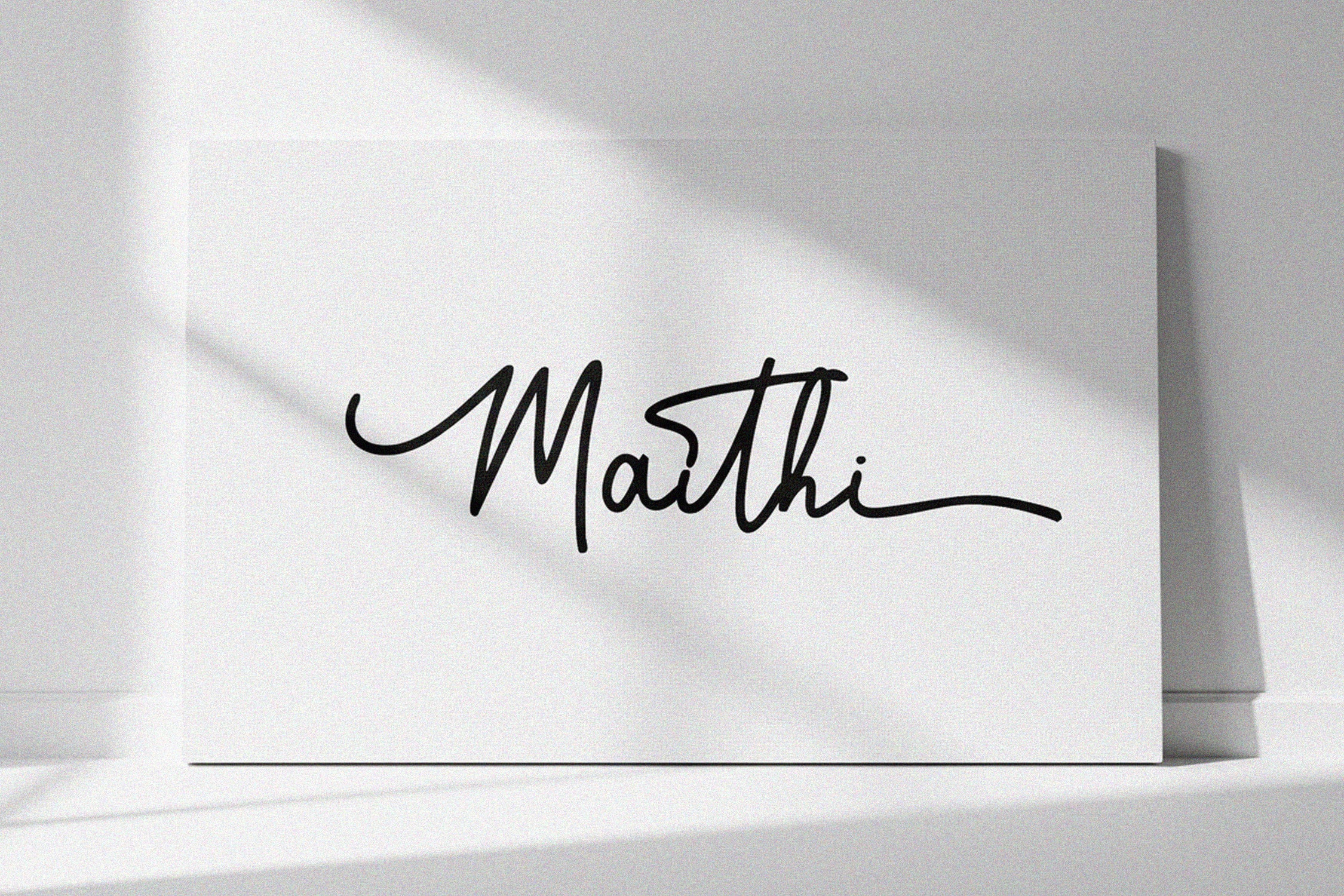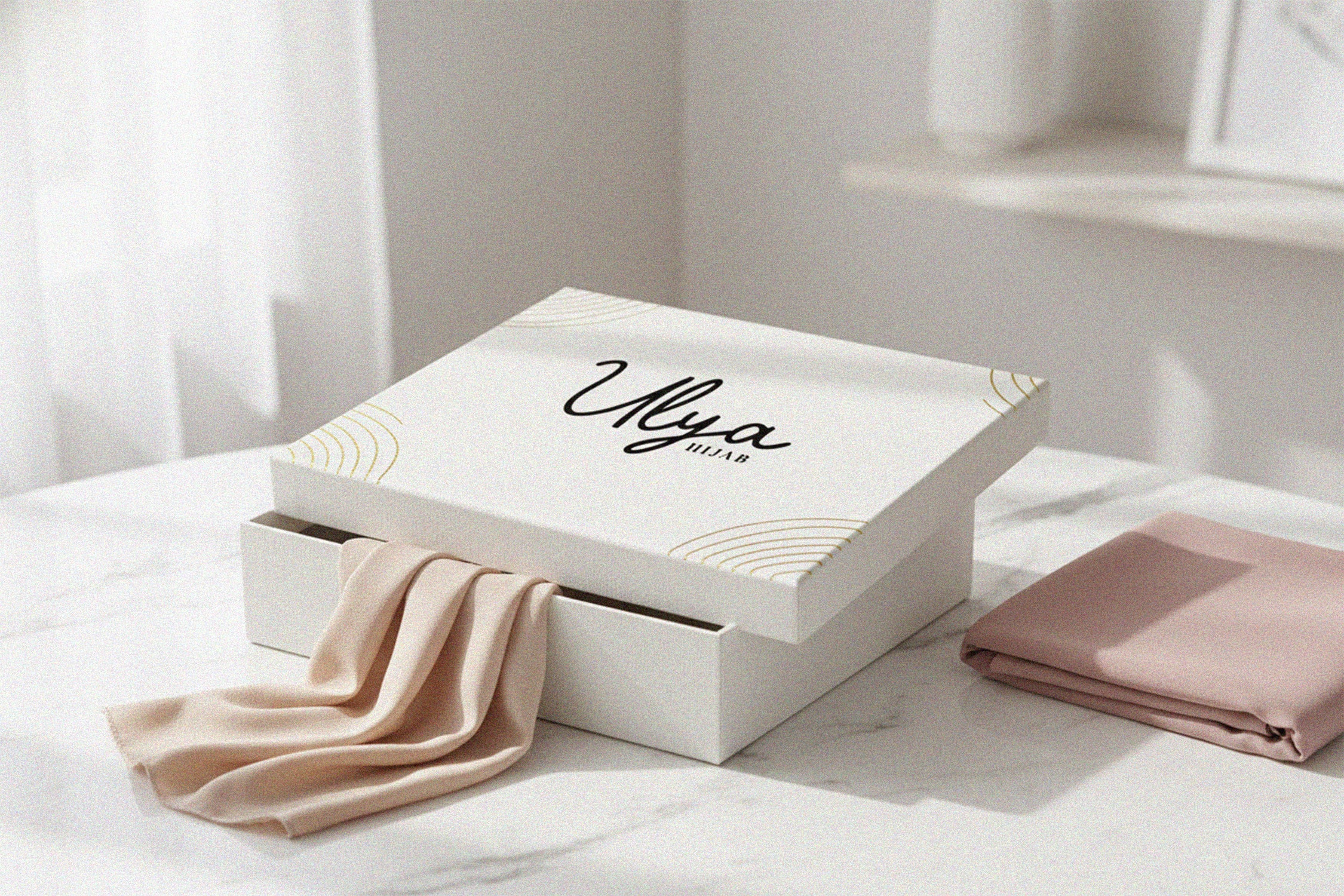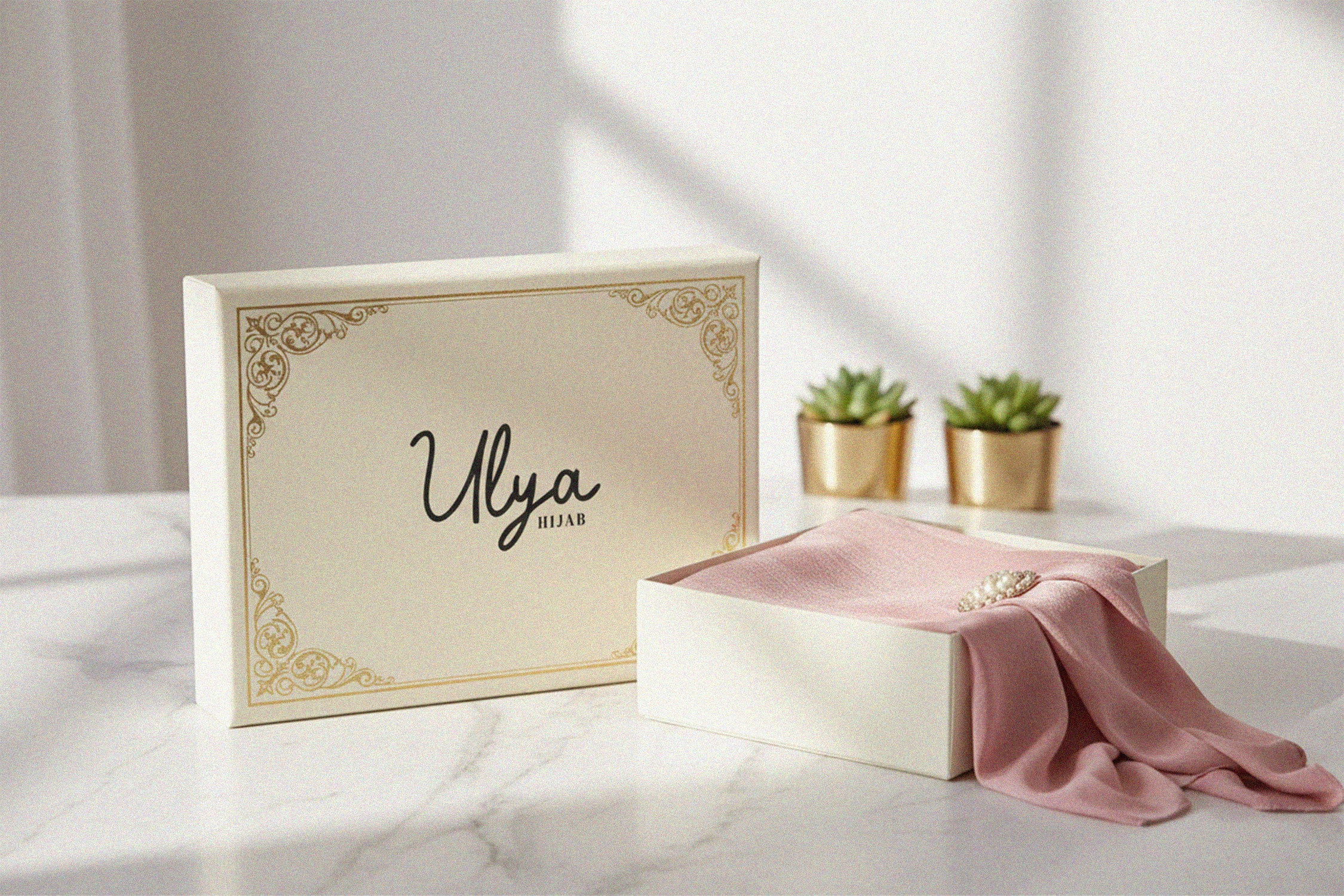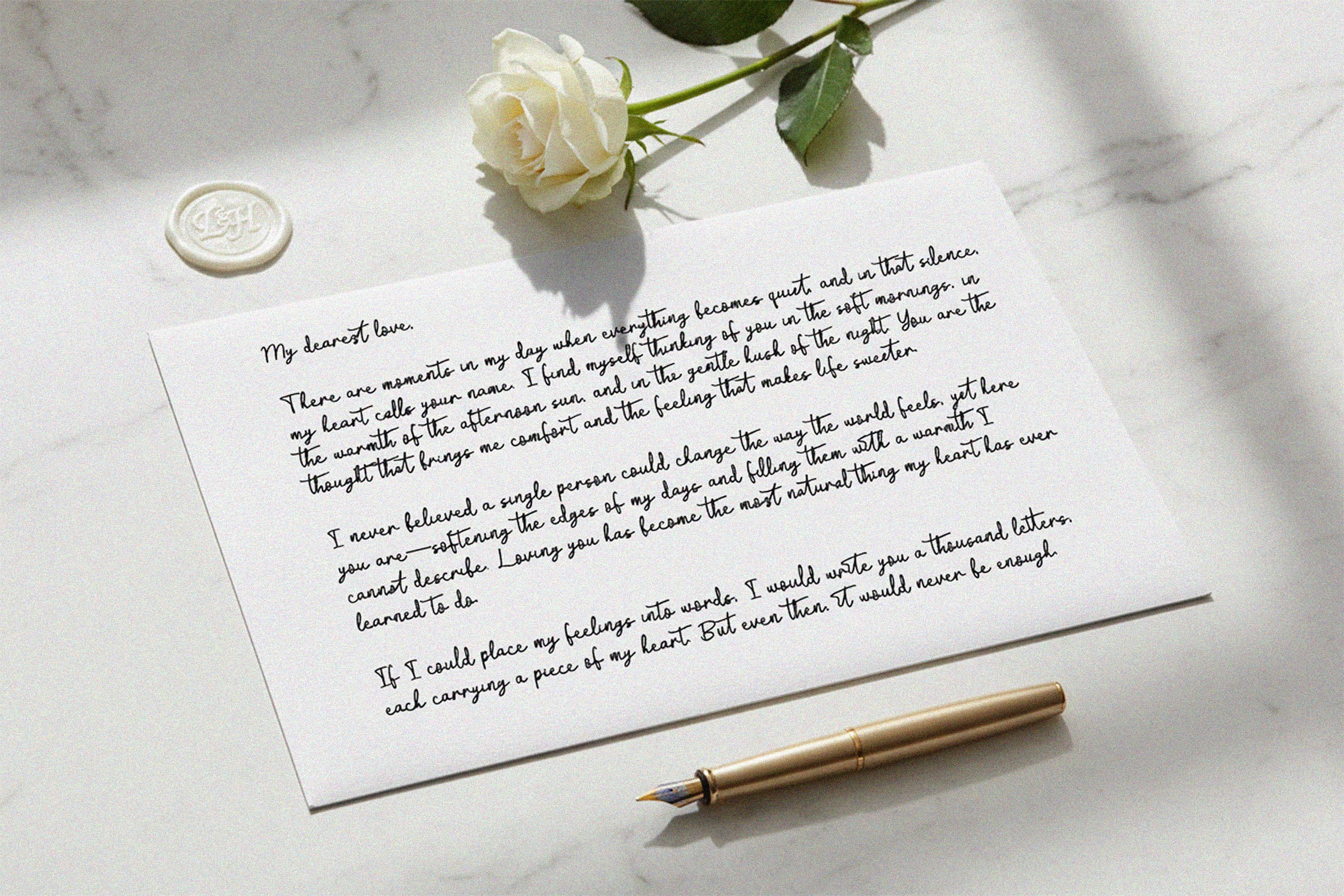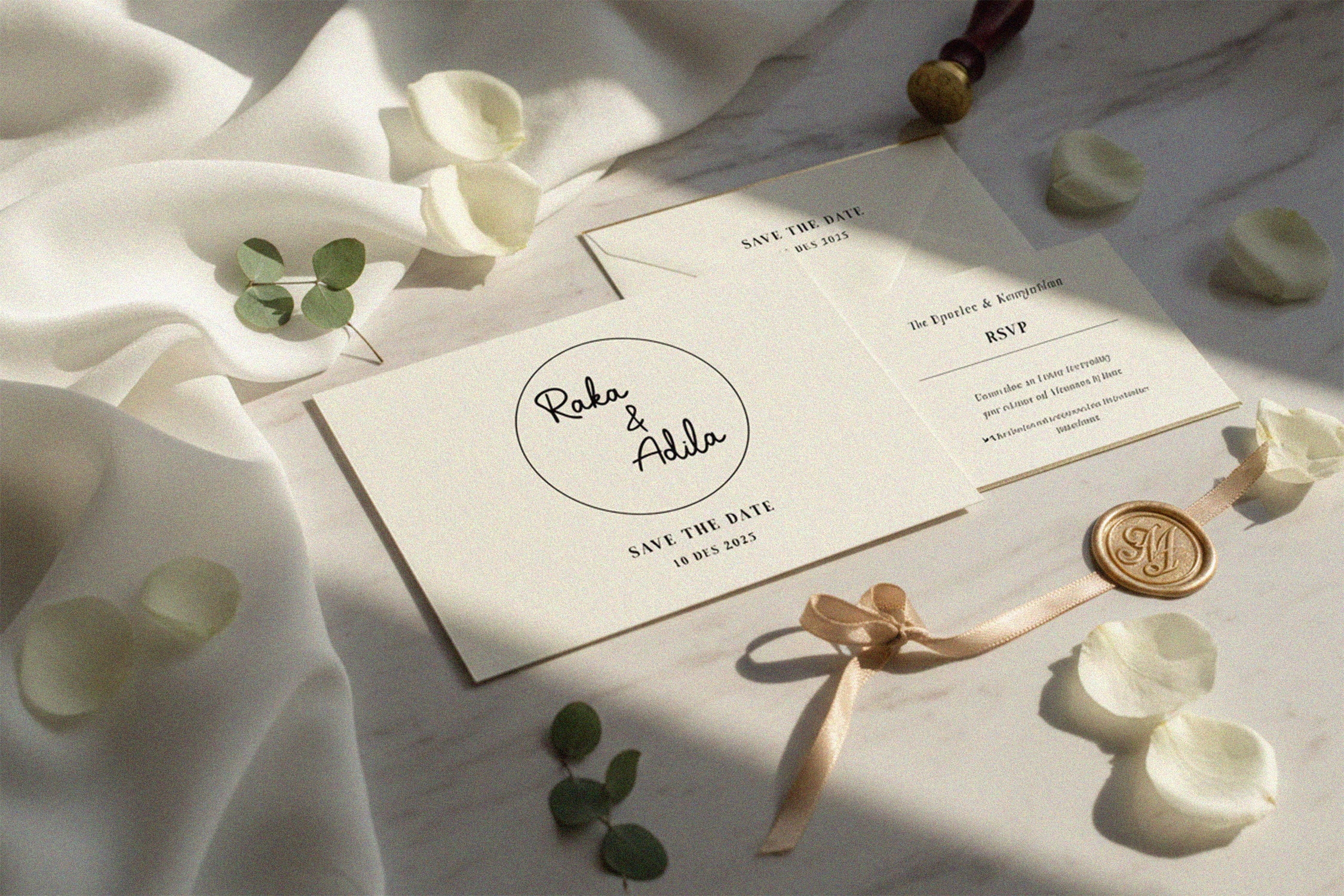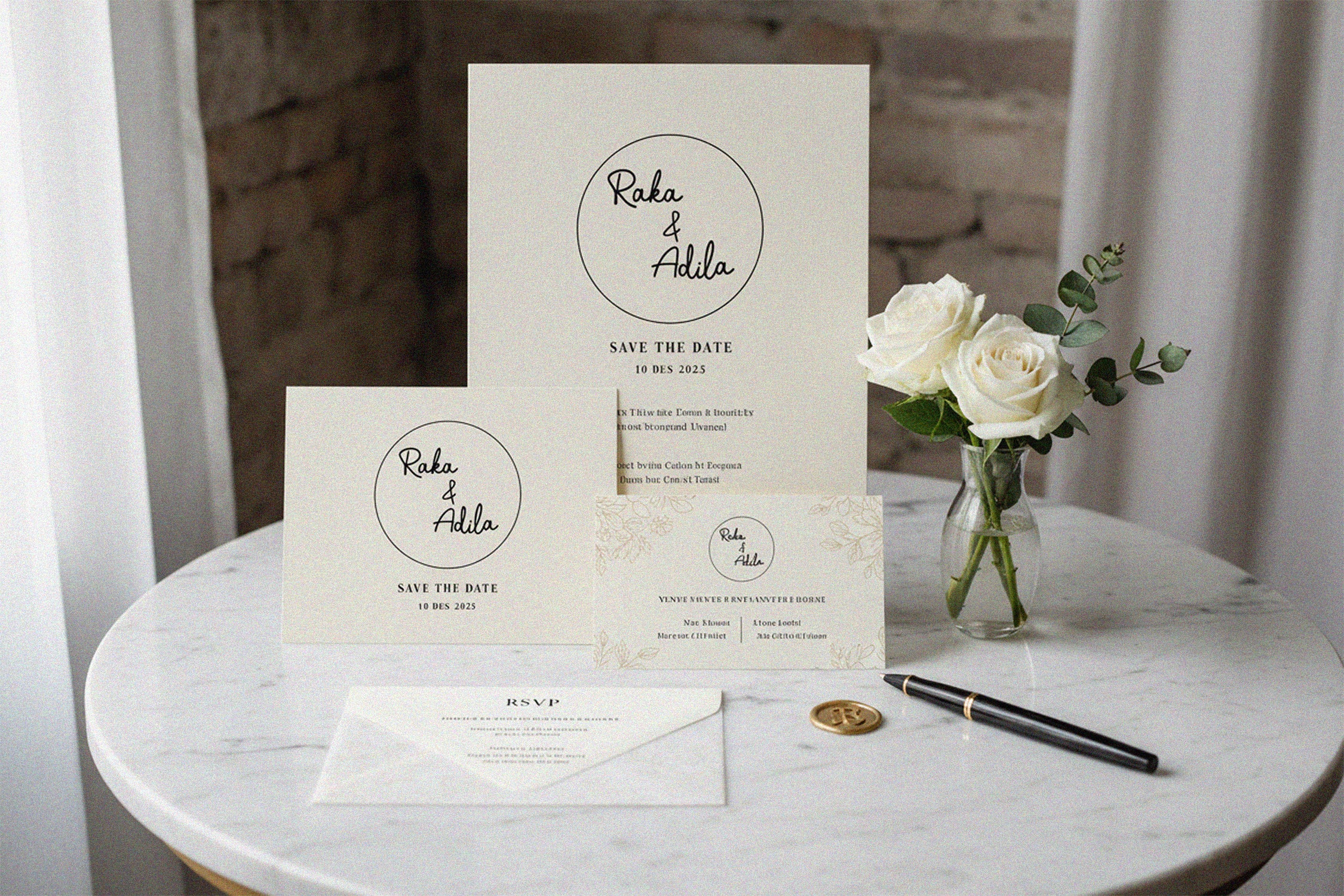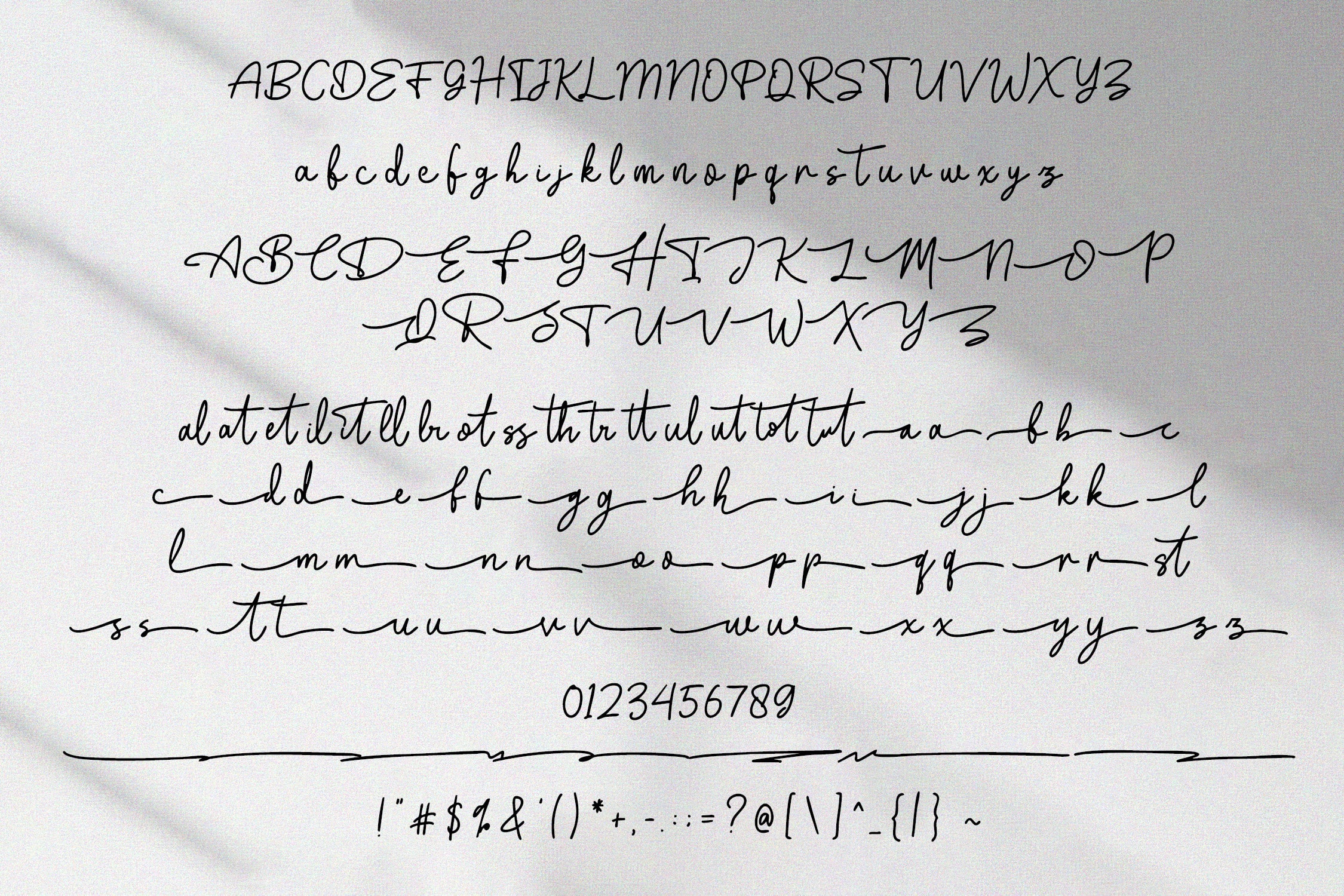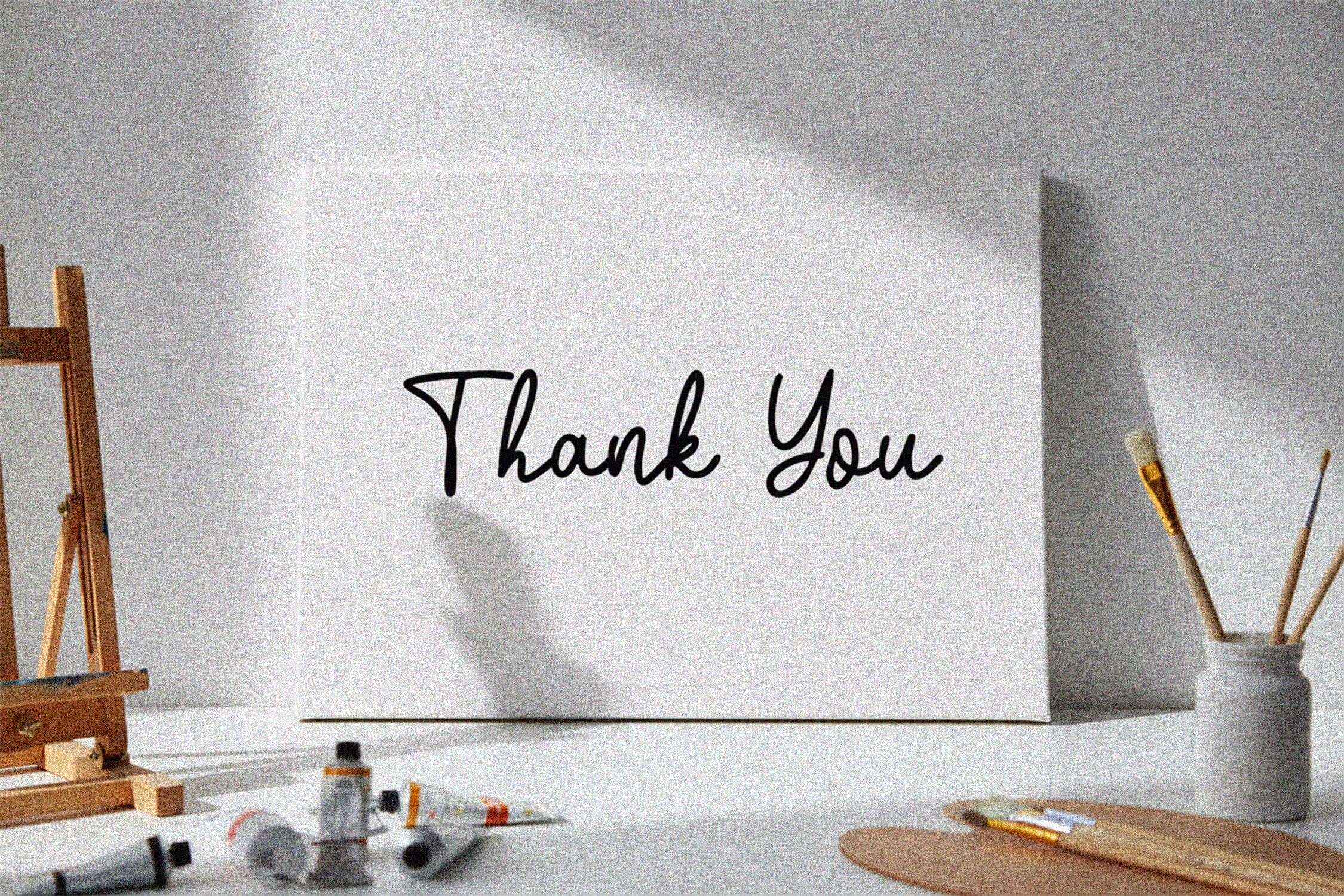
Maithi Monoline Script Font is a clean, smooth, and modern monoline typeface crafted to bring effortless elegance to any design. With its balanced strokes and minimalistic handwritten flow, Maithi is perfect for logos, branding projects, packaging, wedding invitations, quotes, and stylish social media content. Its simplicity makes it versatile, while the subtle monoline charm adds a warm, personal touch to your layouts. Whether you’re creating a professional visual identity or a soft, aesthetic-themed design, Maithi offers a timeless script feel that enhances your work without overwhelming it.